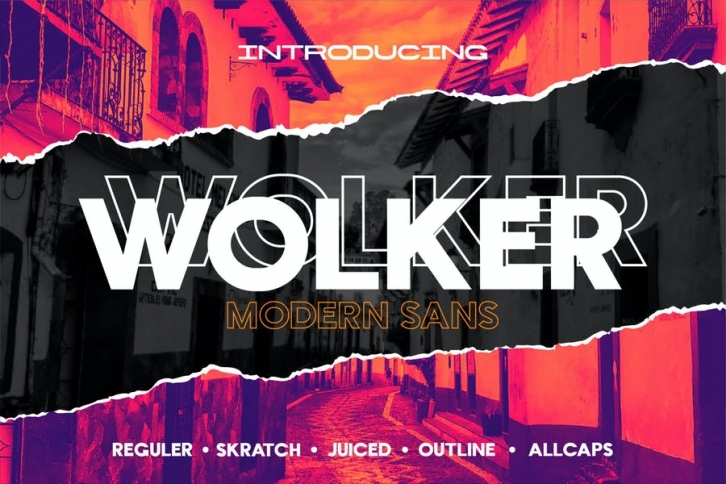
Wolker is a Modern and essential all caps sans. It's a very versatile font that works great in large and medium sizes. Looks gorgeous and stern. You can layered two font styles and create awesome headers. Wolker is perfect for making designs with the theme of brutalism.